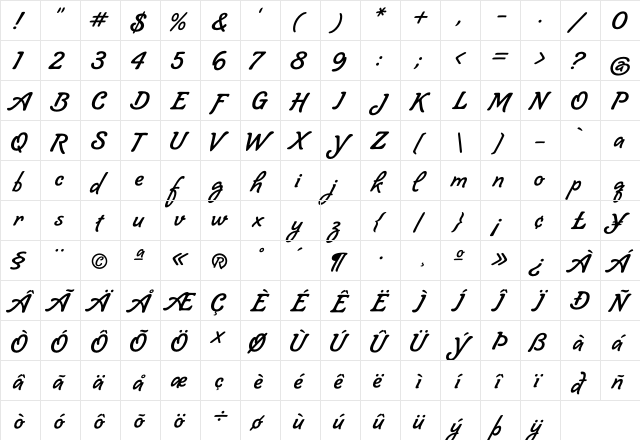
Lombriz Regular
| Foundry | Sudtipos |
| Designer | Angel Koziupa & Alejandro Paul |
Design Context for Lombriz Typeface
Lombriz is a composed and adaptable typeface that performs quietly and consistently across a wide range of design contexts.